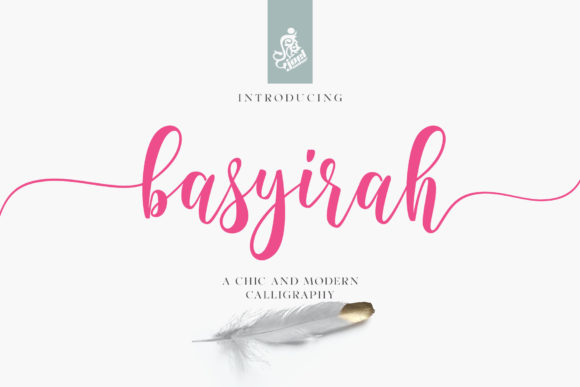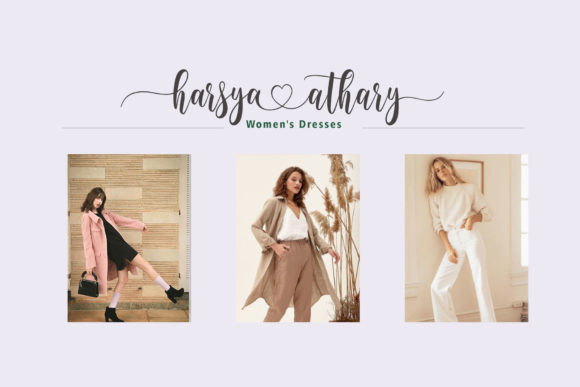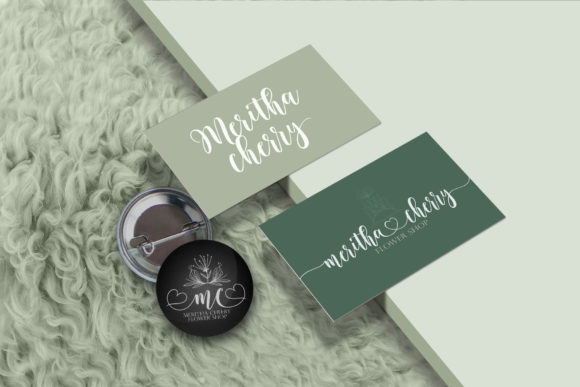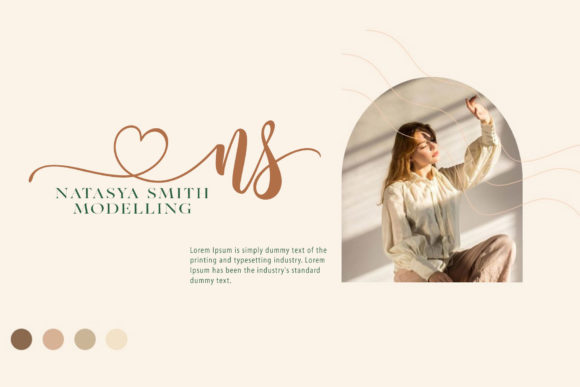
Basyirah Font
Basyirah is a chic and joyful handwritten font. It looks lovely on wedding invitations, thank you cards, quotes, greeting cards, logos, business cards and every other design which needs a handwritten touch. It features a varying baseline, smooth lines, gorgeous glyphs and stunning alternates.